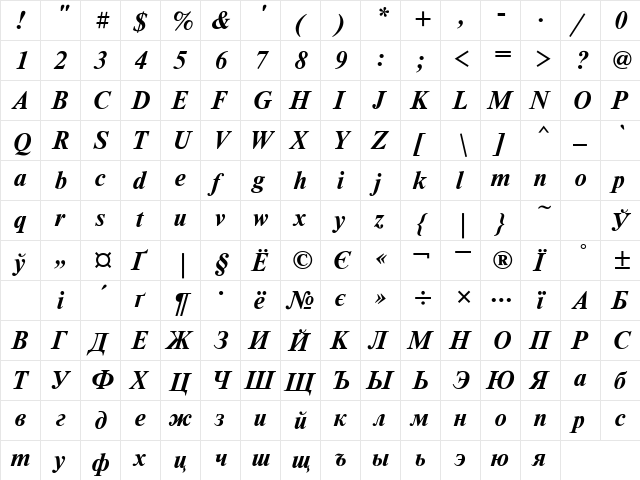
TimesET BoldItalic
Design Context for TimesET Typeface
TimesET is a composed and adaptable typeface that performs quietly and consistently across a wide range of design contexts. Its italic angle brings a sense of urgency and motion to the letterforms. Its bold stroke weight gives it real presence on the page.